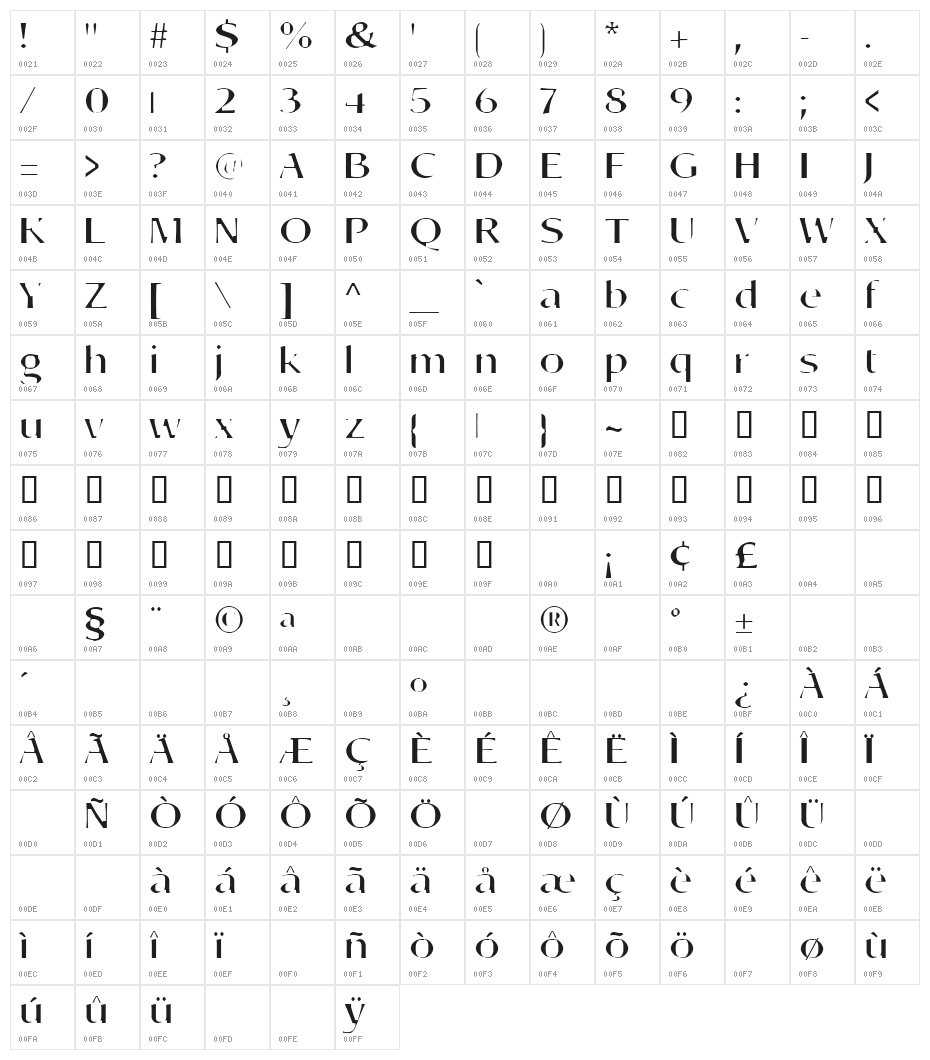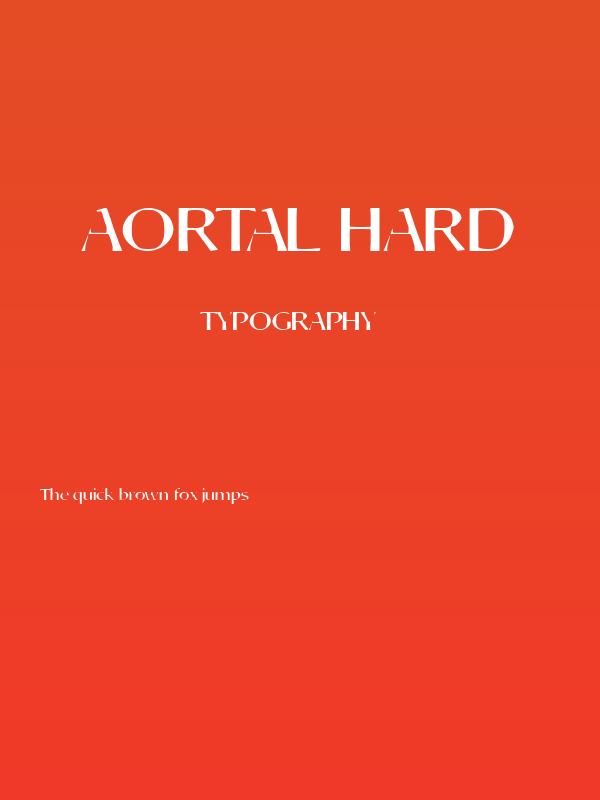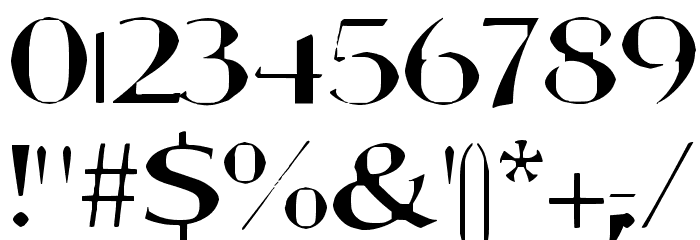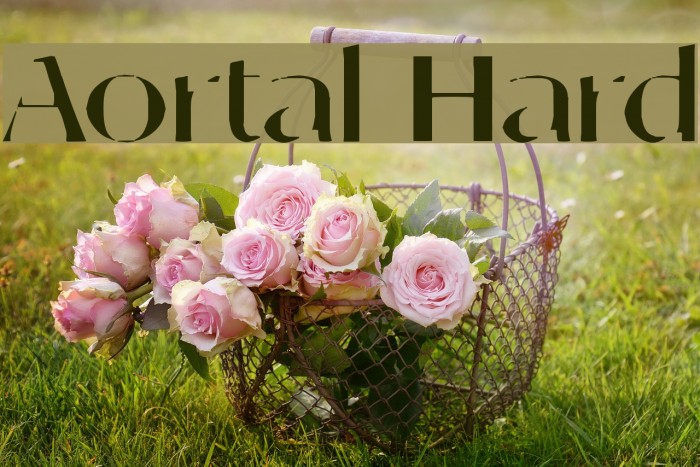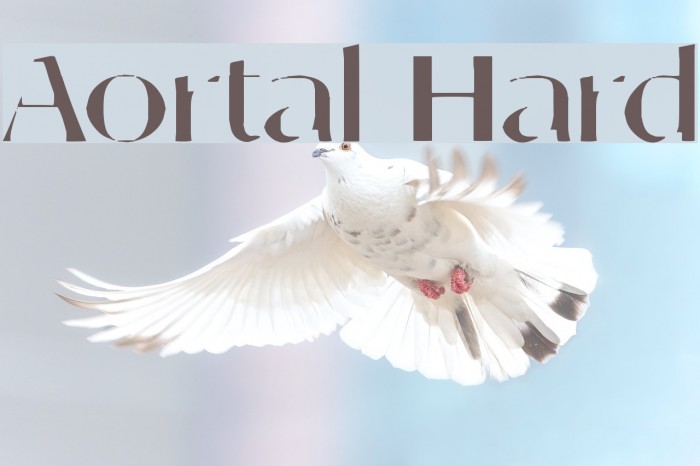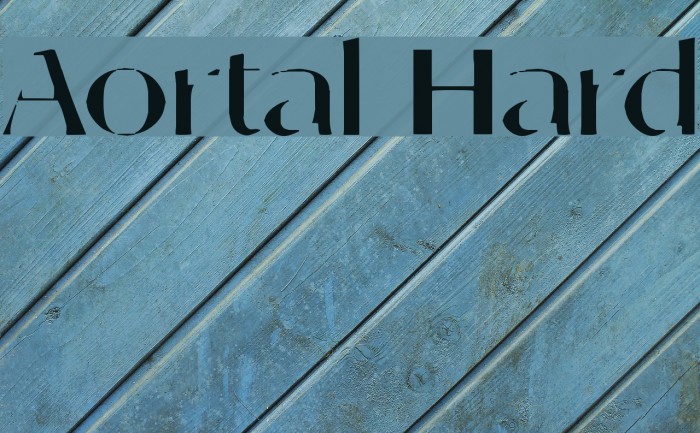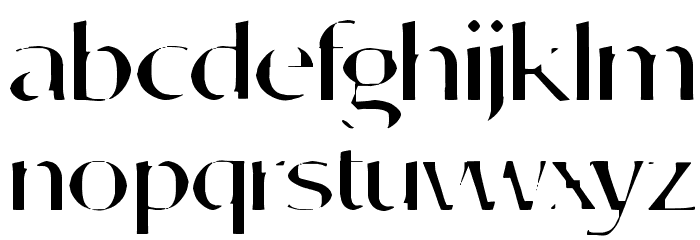
Aortal Hard Font
Aortal Hard Description
This font features a bold and striking design with a modern twist. The characters are crafted with sharp, angular cuts and high contrast between thick and thin strokes, giving it a dynamic and edgy appearance. The uppercase letters are particularly distinctive, with unique geometric shapes that create a sense of movement and energy. The lowercase letters maintain this style, providing a cohesive look across the typeface. The numbers and special characters are equally bold, ensuring consistency throughout. This font is ideal for making a strong visual impact.
| Proposed Projects | Ideal for branding, poster design, album covers, and any project requiring a bold, modern aesthetic. |